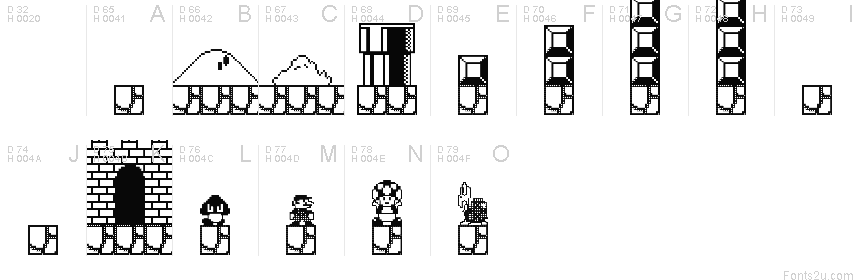
Mushroom Kingdom NBP, created by Nate Halley, is a free video game dingbat font modeled on the crisp graphics and compact proportions of early console platformers. Its symbols feature squat characters, angular terrain, pipes, and repeating architectural pieces.
Retro gaming gives this collection its clearest context in event posters and fan merchandise, thanks to its recognizable arcade-era scenery and straightforward sense of movement. It can also furnish game-themed invitations or digital graphics with ready-made figures, obstacles, and environment pieces. The recurring platforms and structures let the symbols become part of a continuous illustrated game level rather than ordinary labels on screen.
Mushroom Kingdom NBP
Nate Halley
Mushroom Kingdom is part of the NBP collection